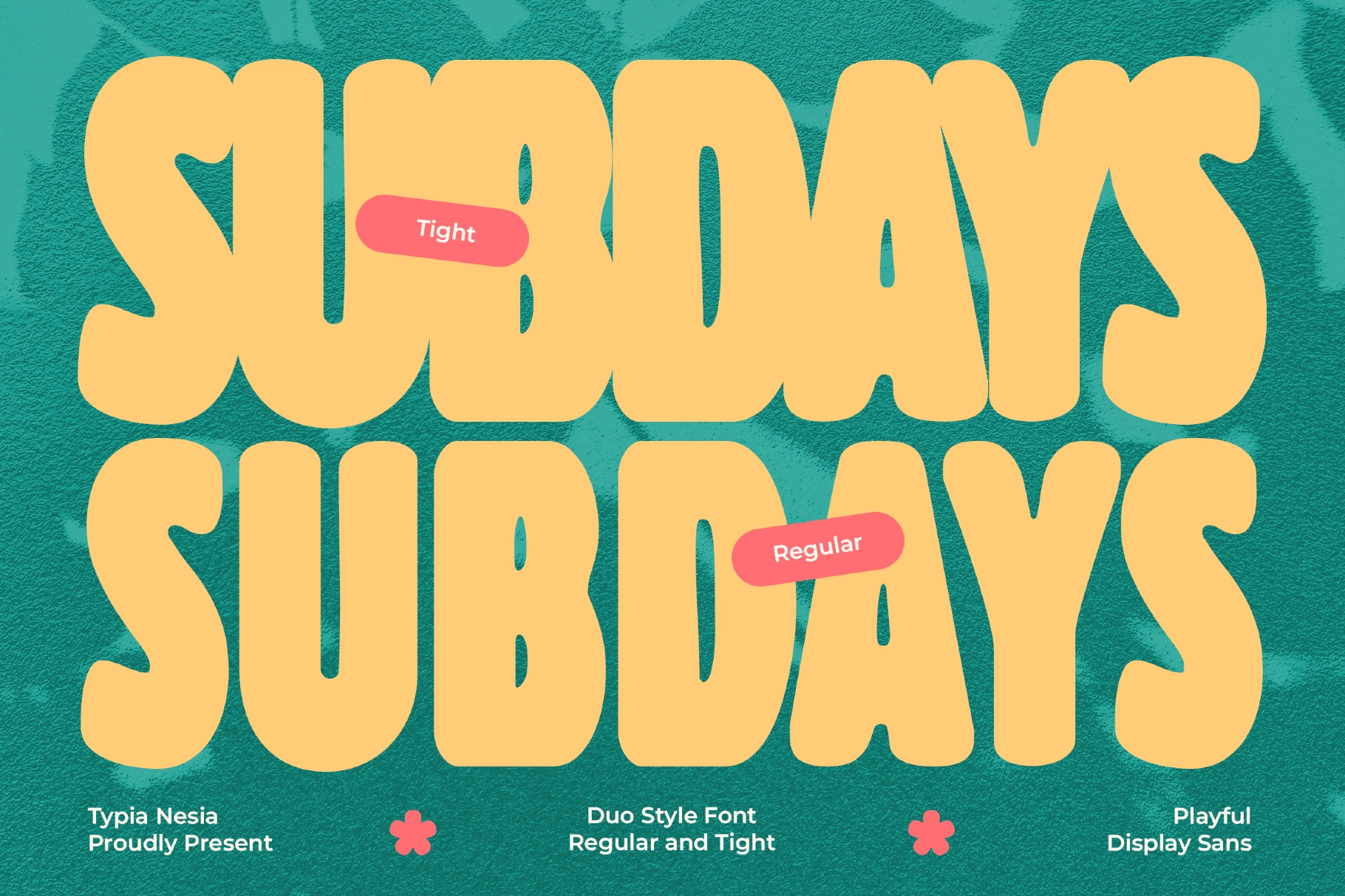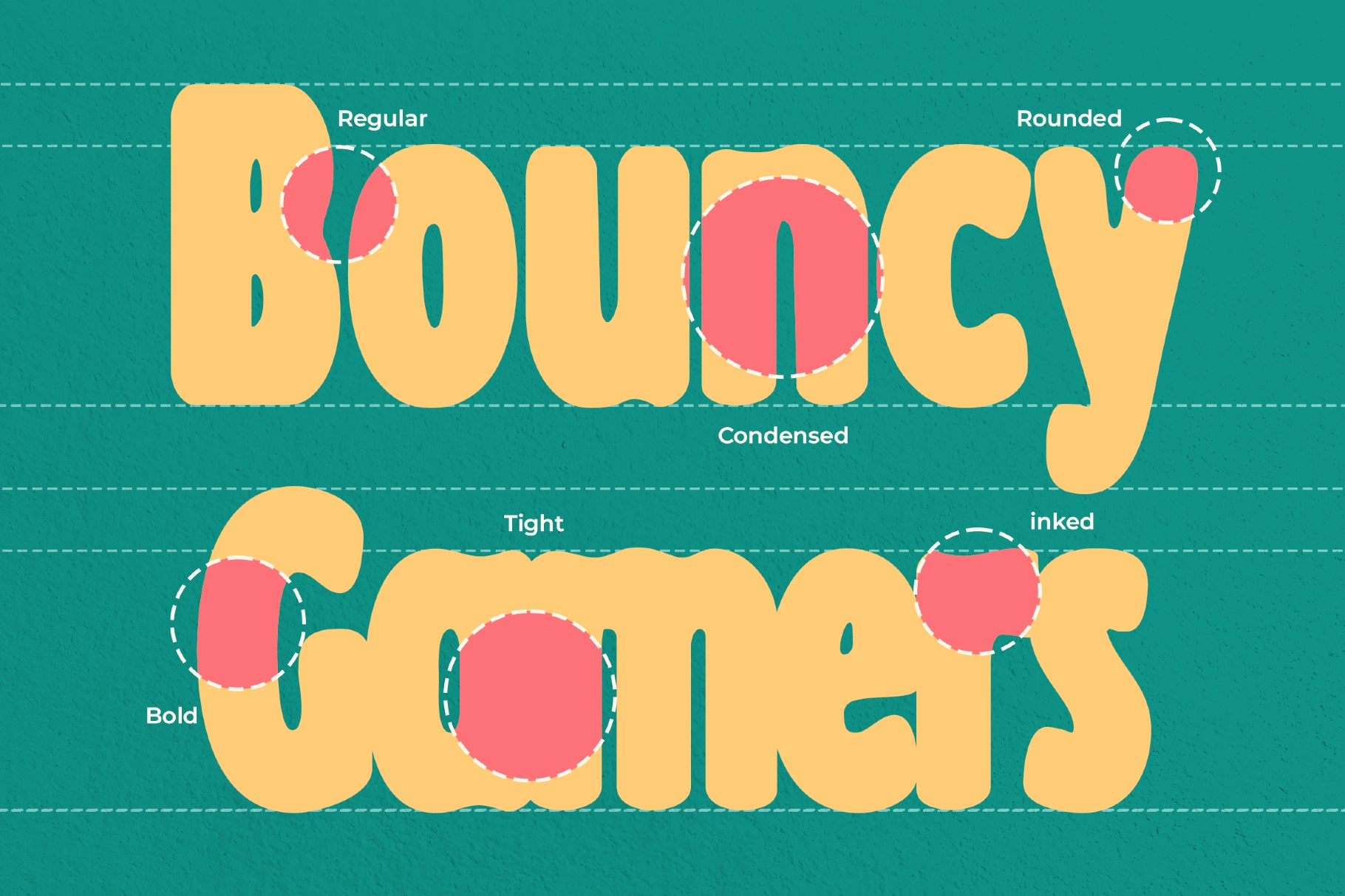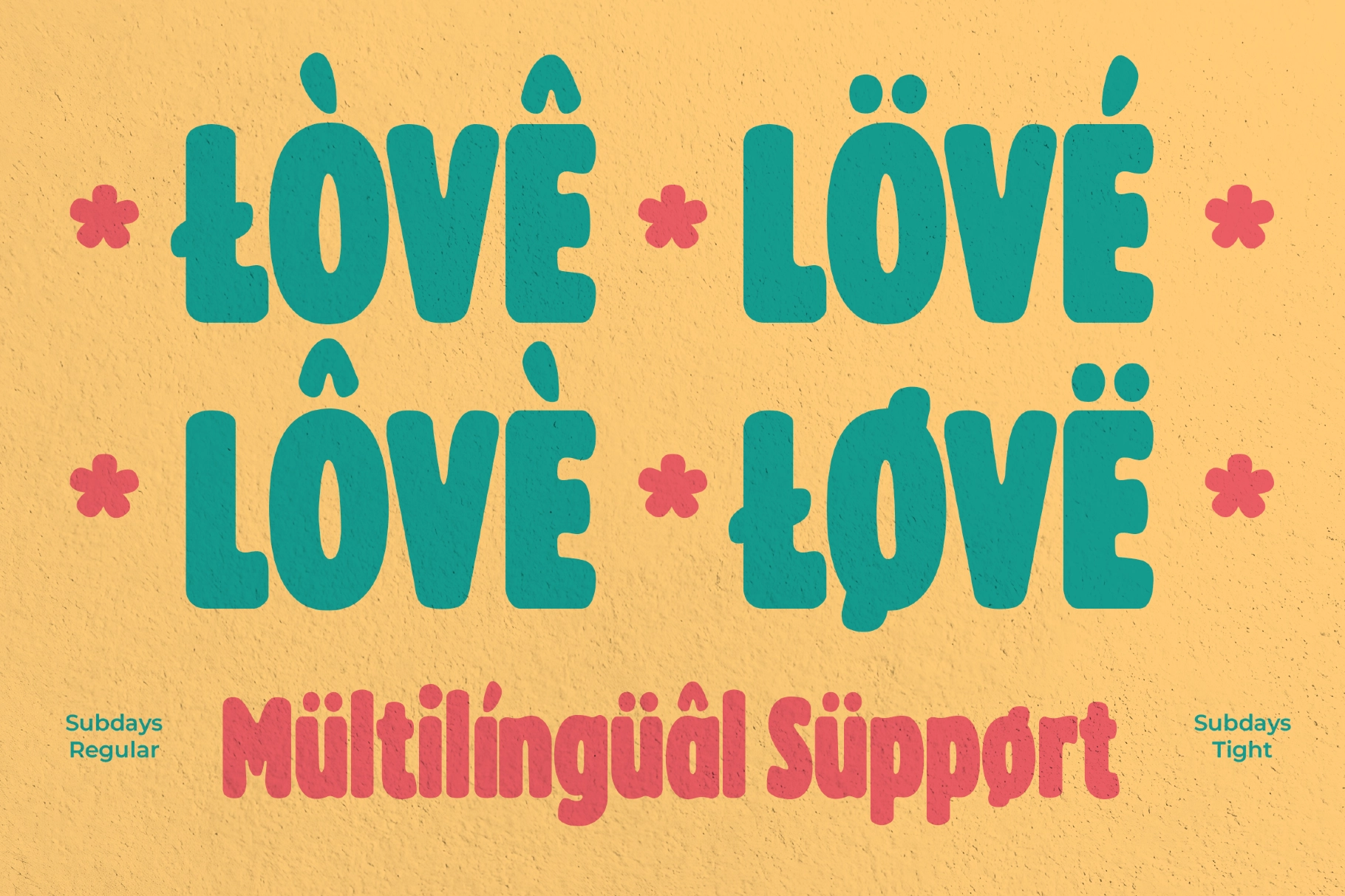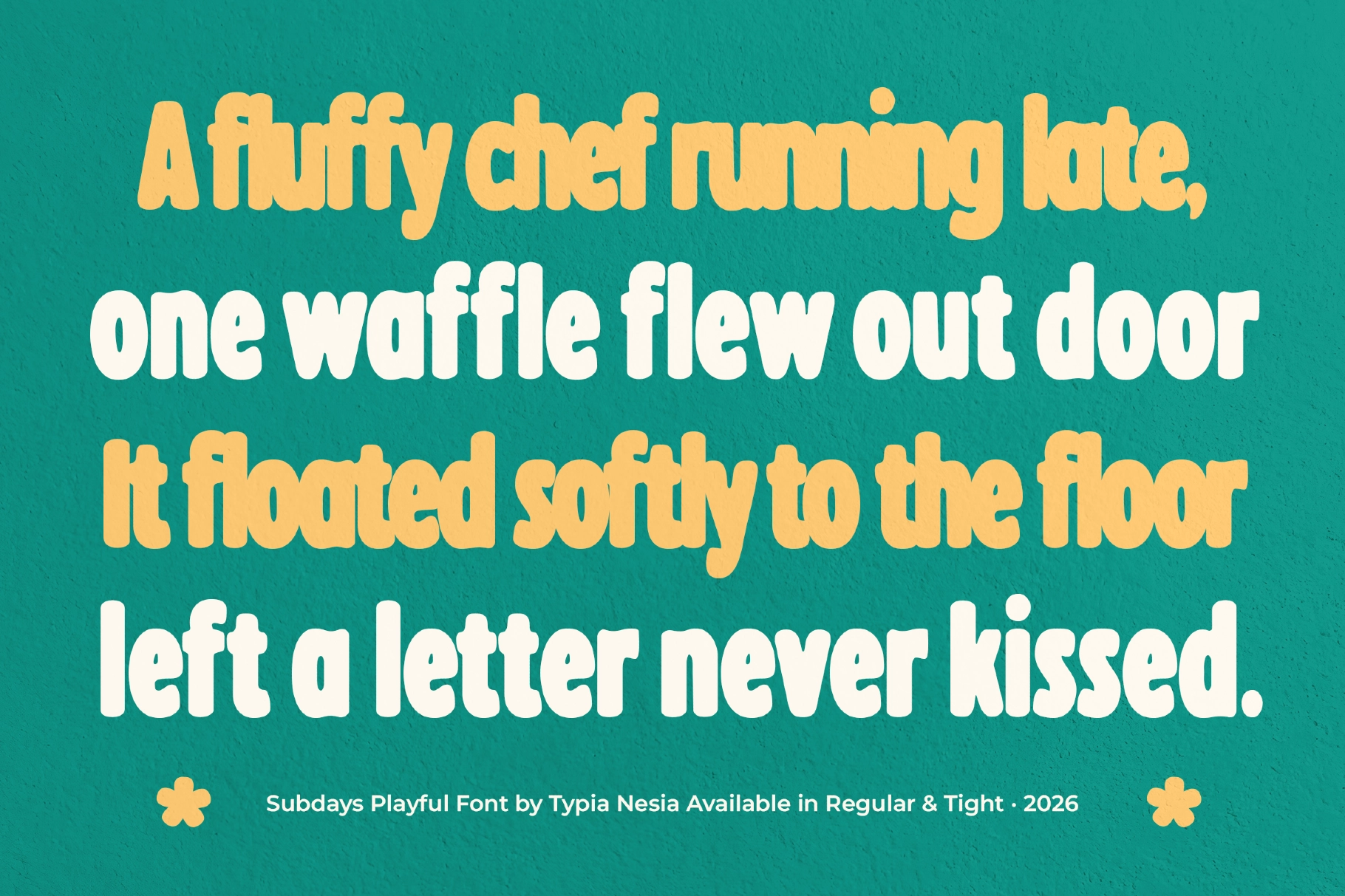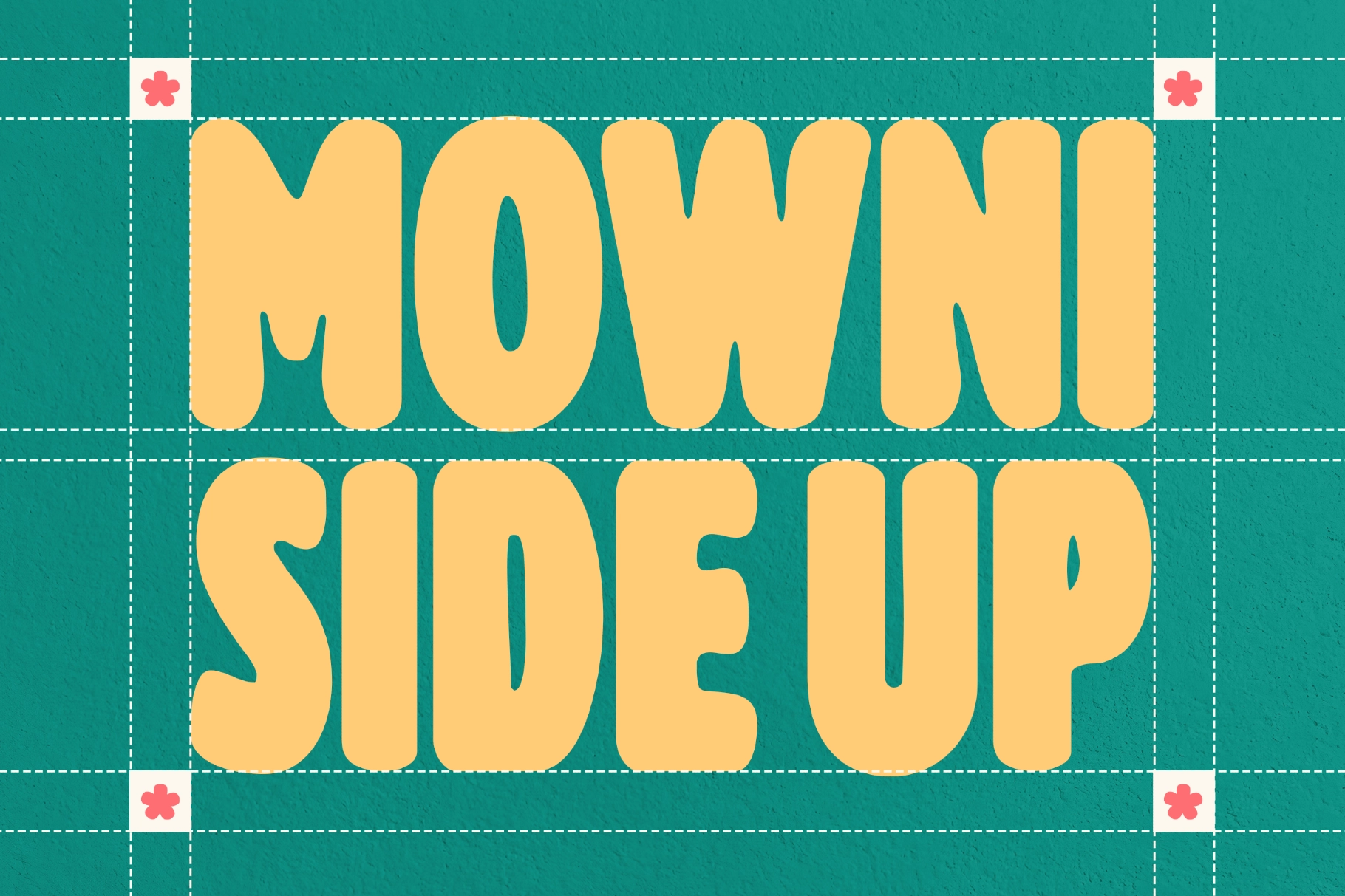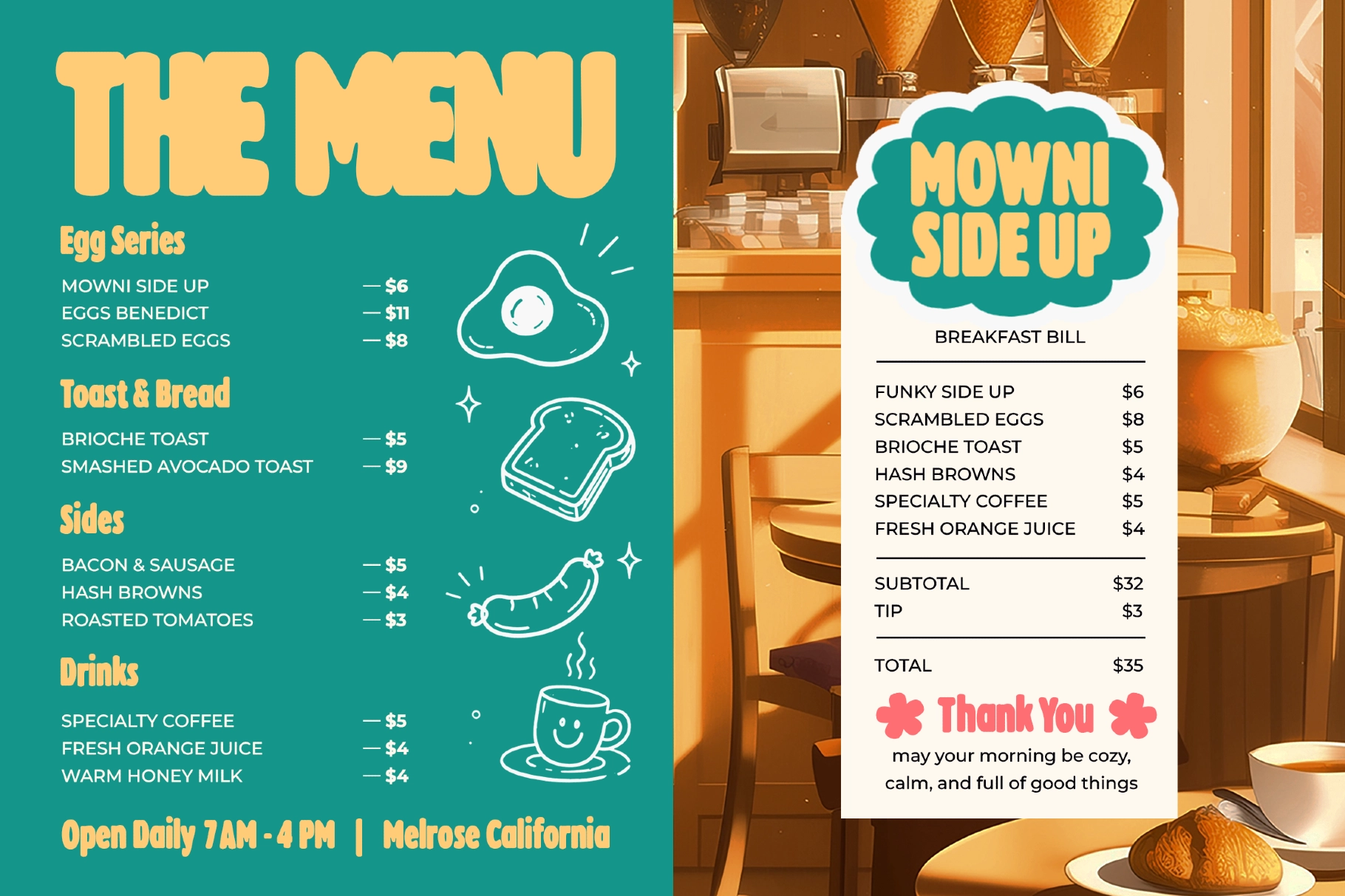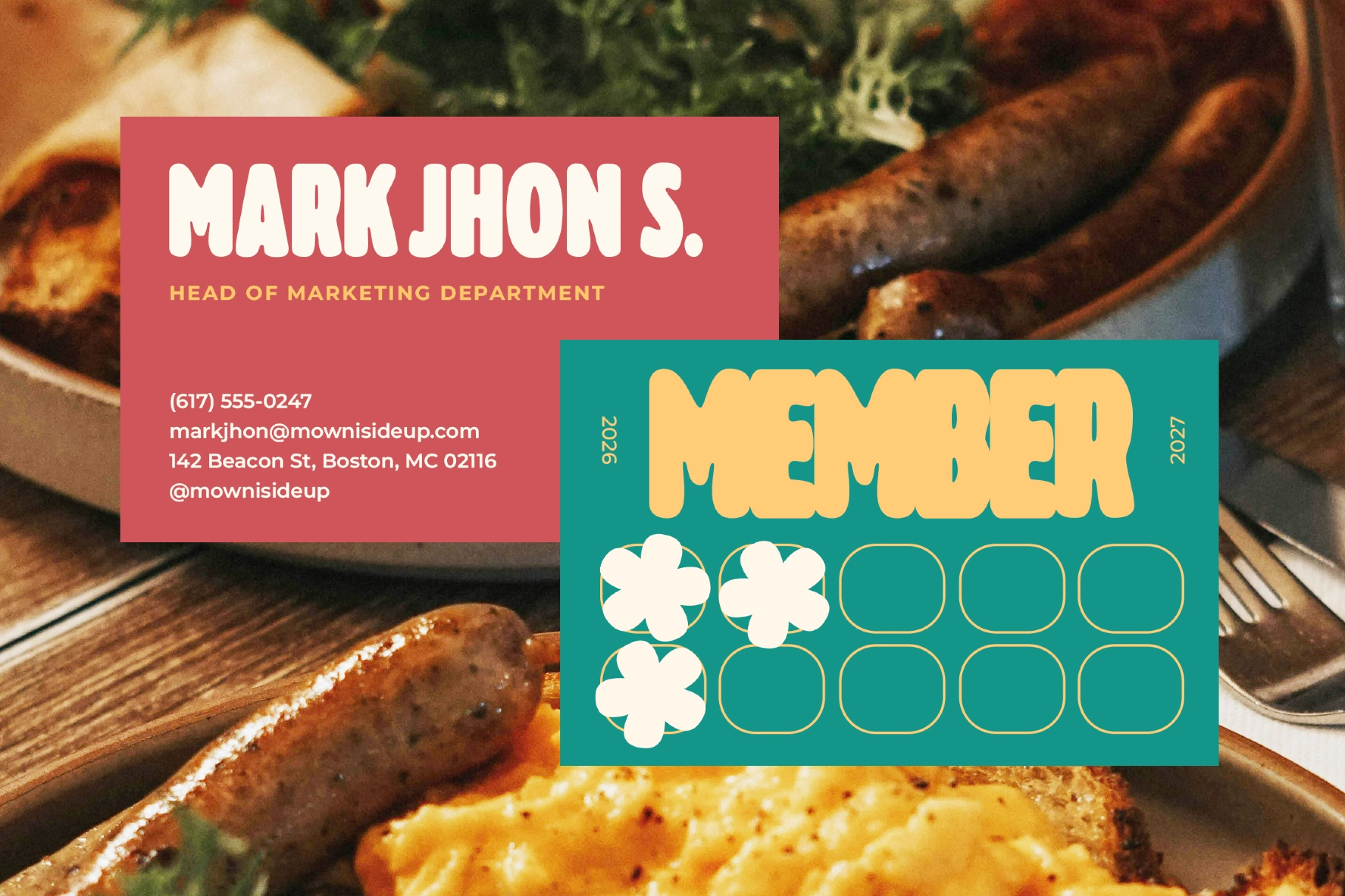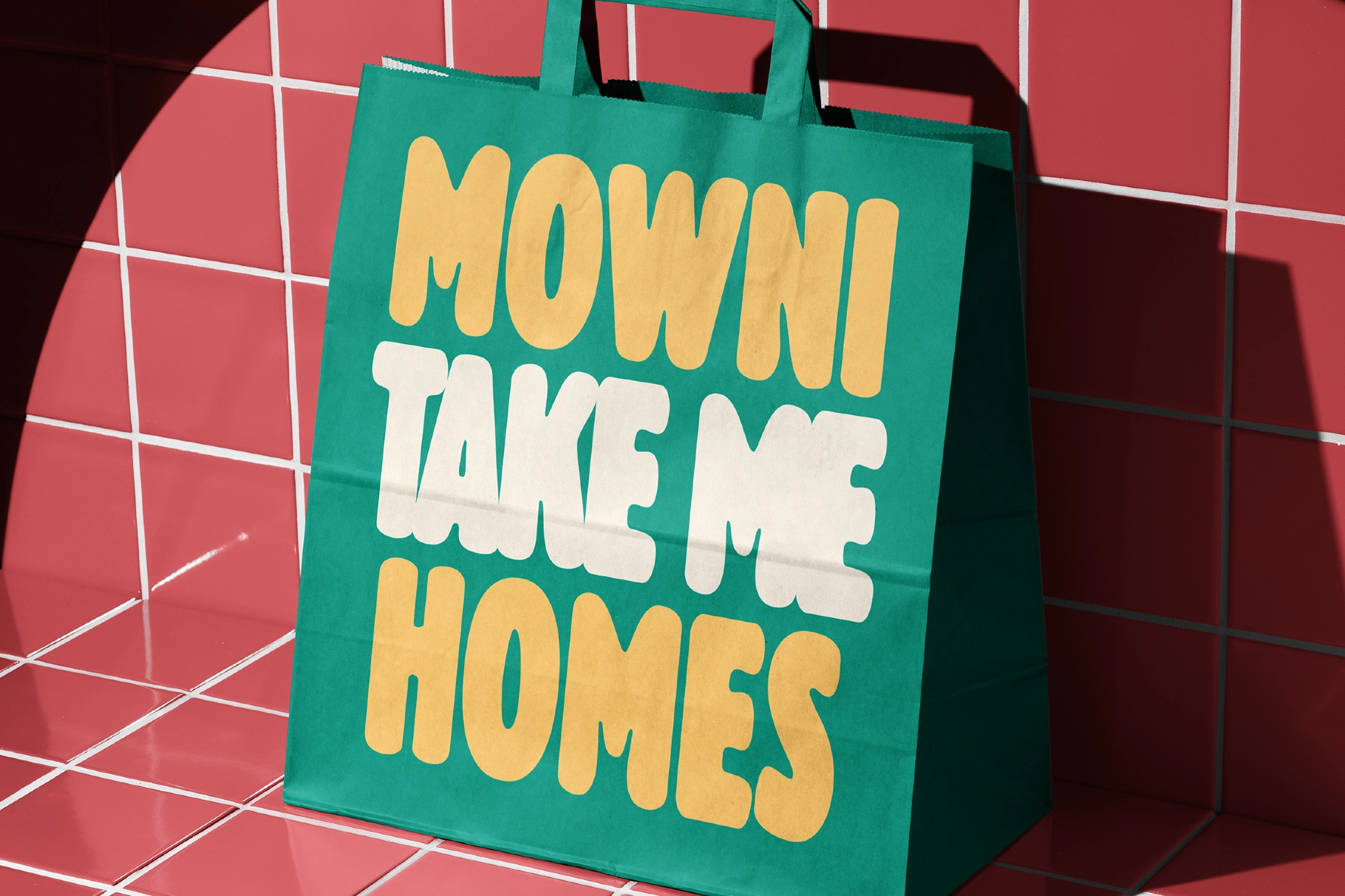
Subdays - Chubby Bubble Display Font
Subdays
Tight
Subdays puffs every letter into a soft, over-inflated bubble shape, with rounded corners and a slight retro wobble that lands somewhere between a diner sign and a 70s candy wrapper. Two styles — a wider Regular and a tighter, more condensed Tight — cover both a loud headline and a denser stacked lockup.
The font holds full multilingual support and reads warm and appetite-friendly at any size. Use it for café and restaurant branding, snack packaging, bakery signage, retro posters, and social media graphics that need a nostalgic, bubbly personality.
- uppercase & lowercase;
- 2 styles: Regular & Tight;